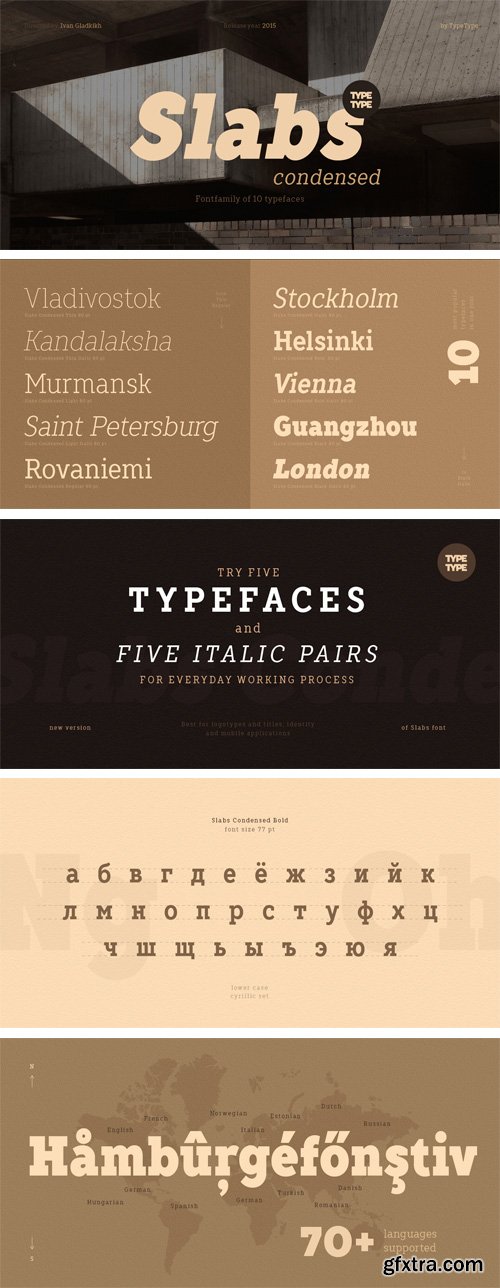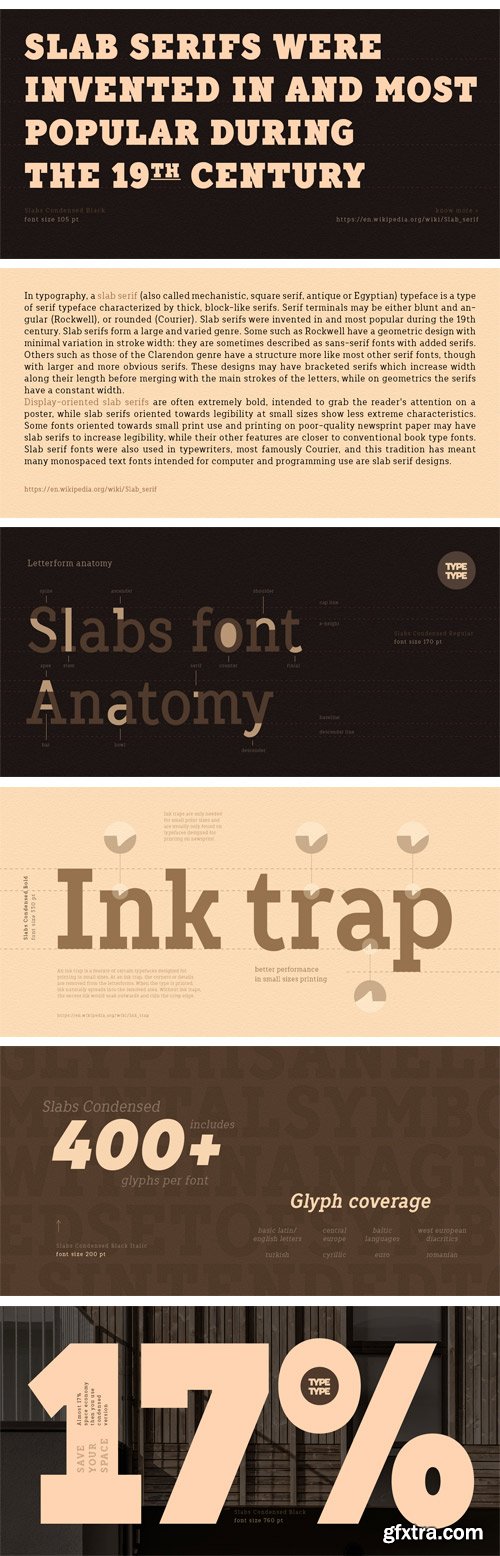
- TT Slabs Condensed it is a condensed version of our TT Slabs fontfamily. This new version is designed for strong headlines and design presentations. Very well suited for designers who create Identity and logos, as well as for interior design and navigation. The special features of the typefaces include the classic formula: Thin, Light, Regular, Bold & Black. Scope: food packaging, packaging of household appliances, newspapers, magazines, headers, signs, theatrical scenery, logos, interior design, decoration of shops. Optimized for the websites, mobile applications, and printing materials.